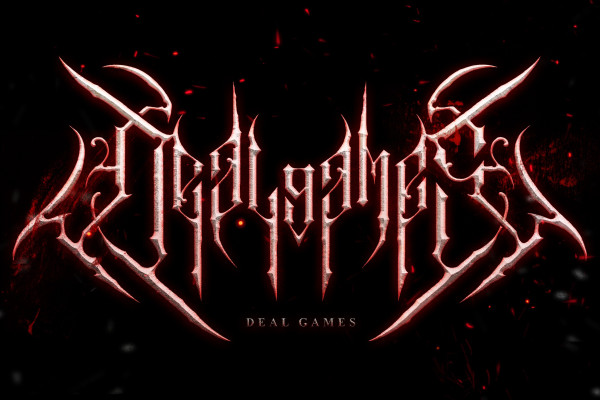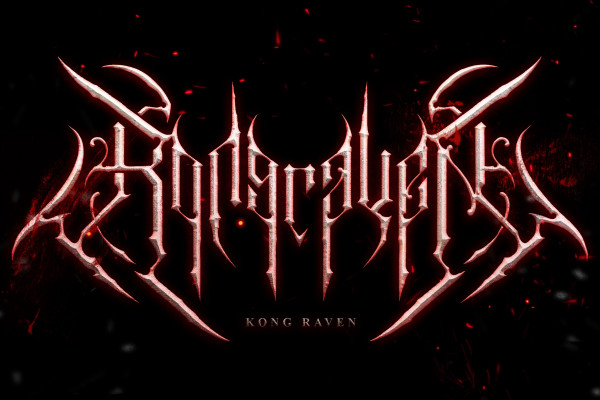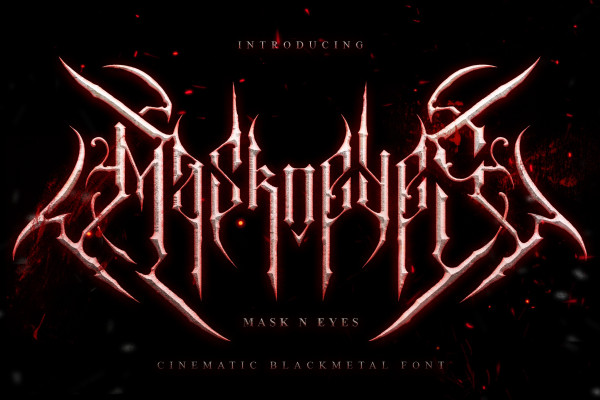
Maskneyes Font
Maskneyes Font is a blackmetal font that has a cinematic feel. This font combines blackletter and blackmetal styles so it has an elegant, cool and frightening impression. Mask n eyes font is suitable for band logos, apparel, song titles, game titles, and movie titles.